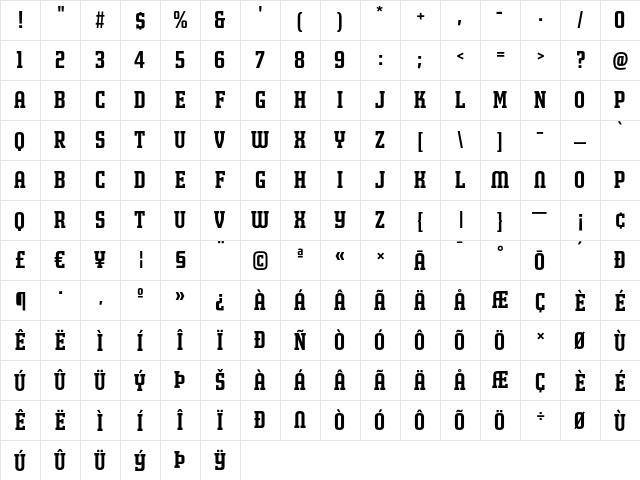
MorganPosterAvec Bold
Design Context for MorganPosterAvec Typeface
MorganPosterAvec is a composed and adaptable typeface that performs quietly and consistently across a wide range of design contexts. Its bold stroke weight gives it real presence on the page.